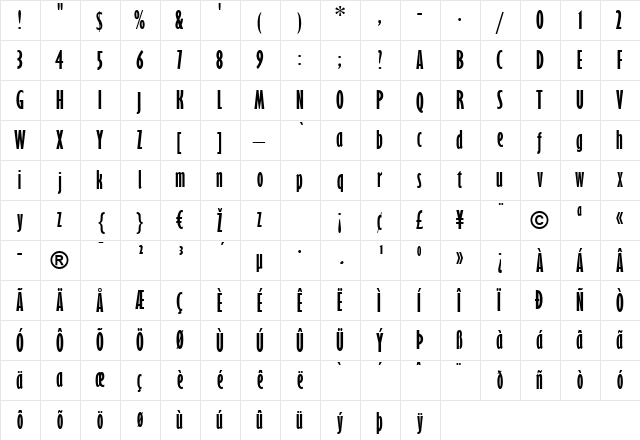
Gill Sans BoldExtraCondensed Regular Font Preview
Design Context for Gill Sans BoldExtraCondensed Typeface
Gill Sans BoldExtraCondensed offers clean, dependable letterforms without strong stylistic allegiance, making it a practical choice for designers who need flexibility. Its bold stroke weight gives it real presence on the page. The condensed width makes it efficient for tight spaces without sacrificing legibility.